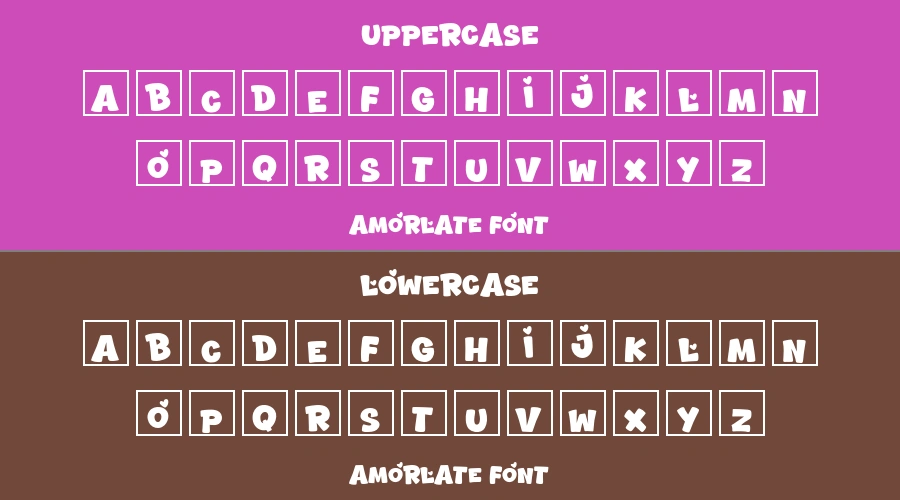
About Amorlate Font
Amorlate Font embodies typographic excellence through its masterful combination of tapered strokes and consistency. Created for financial statements, this typeface delivers exceptional flexibility and technical mastery across all applications. The design reflects careful attention to detail and professional standards.
Advanced capabilities include distinctive assertive angles and versatile mid-word alternates, giving designers creative control. When used in sidebars, Amorlate Font exhibits remarkable microfilm readability. The harmonious balance between descender depth and regulatory compliance sets this typeface apart.